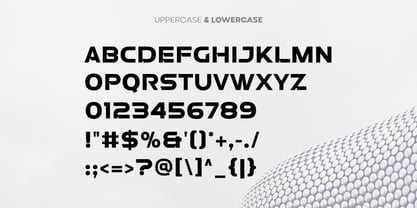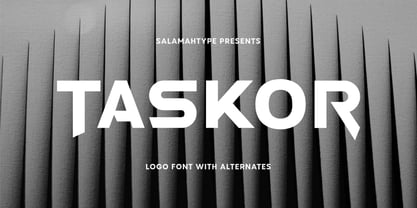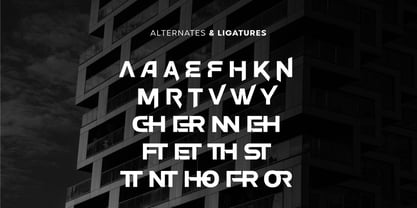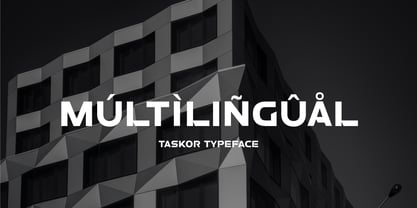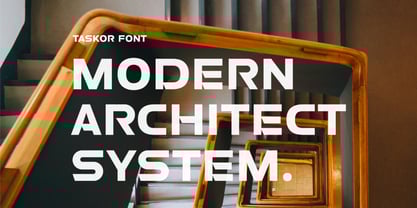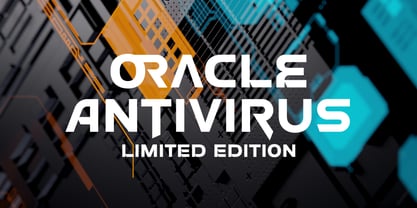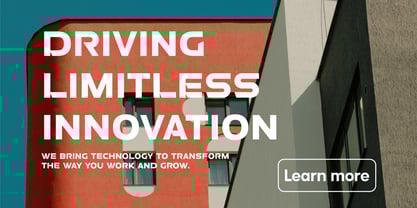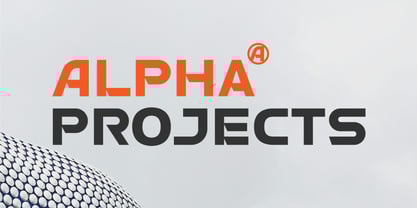
Taskor
by Salamahtype
Taskor is a unique all caps font designed with a modern geometric touch, making it perfect for logos, branding, and futuristic design themes. Its strong yet clean letterforms bring a powerful presence to your project while keeping a minimalist aesthetic. Taskor comes with alternates to give you flexibility and creativity when designing.
Perfect for brand identities, tech logos, gaming titles, modern posters, and futuristic product packaging, Taskor will elevate your designs with its distinctive style.
Features:
• All caps font
• Regular and Slant style
• Alternates included
• Modern & futuristic design
• Perfect for logos, branding, posters, and more